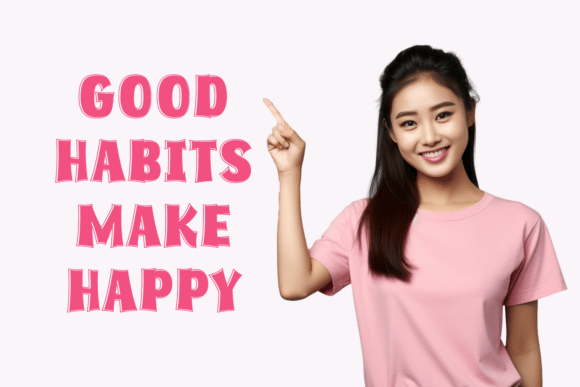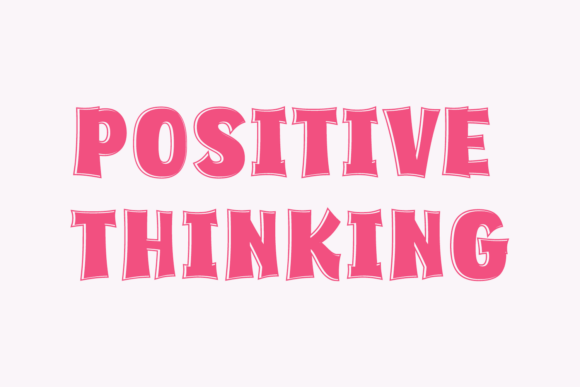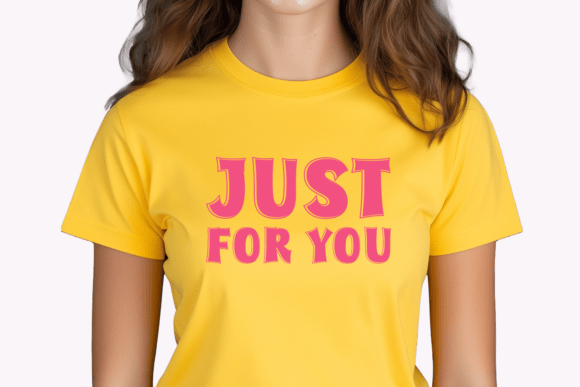
Introduction to Howdy Smart Font
Have you ever stared at a blank canvas, struggling to find the perfect font to bring your creative project to life? The blank page can be intimidating, but what if you could infuse it with a dash of nostalgia and a pinch of sophistication? That’s exactly what the Howdy Smart Font does – it adds a layer of smart sophistication to every design, making it a go-to resource for designers.
As a design resource, Howdy Smart Font is a game-changer. Its retro allure and bold stature make it perfect for creating eye-catching headlines, logos, and posters. With its high-quality design, you can trust that your project will stand out from the crowd. Plus, its versatility makes it a great choice for everything from book cover designs to stationery accents.
Key Features of Howdy Smart Font
- High-Quality Design: Howdy Smart Font is designed with precision and care, ensuring a crisp and clear visual experience for any creative project.
- Unique Character Set: The font includes a unique set of characters, including alternate glyphs and swashes, adding a touch of personality to any design project.
Honest Review: Howdy Smart Font
I recently stumbled upon the Howdy Smart Font and I must say, it’s been a game-changer for my design projects. This font is perfect for designers who need a high-quality, versatile resource for their creative endeavors.
One of the standout features of the Howdy Smart Font is its transparent background, which makes it super easy to use and customize for any design need. I’ve used it for both personal and commercial projects, and it always delivers.
- High-quality design that’s perfect for print or digital projects
- The font may not be as extensive as some other options on the market
Overall, I’m really impressed with the Howdy Smart Font. It’s a great addition to any designer’s toolkit, and I’d highly recommend it for anyone looking for a high-quality, versatile font.
Howdy Smart Font is a versatile and high-quality design resource ideal for creative projects. This font offers a transparent background, making it easy to customize and integrate into various design applications.
Getting the Most Out of Howdy Smart Font
For optimal results, use Howdy Smart Font in conjunction with other design elements, such as graphics and images. Experiment with different font sizes and styles to add visual interest to your design project.
Howdy Smart Font is ideal for a variety of creative projects, including graphic design, digital art, and print materials. You can use it to create eye-catching logos, brochures, and advertisements.